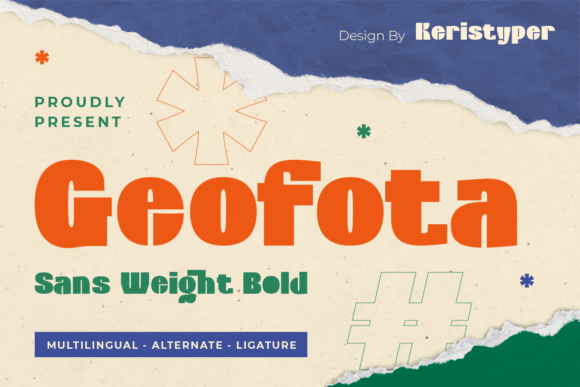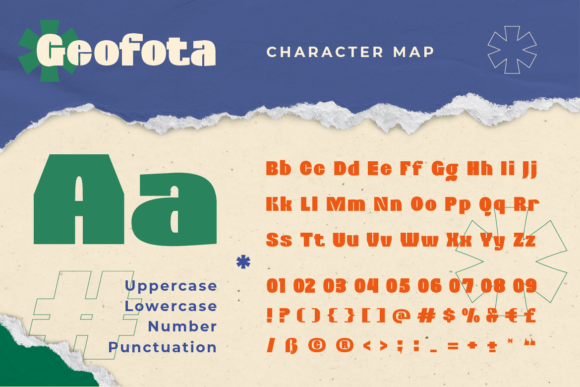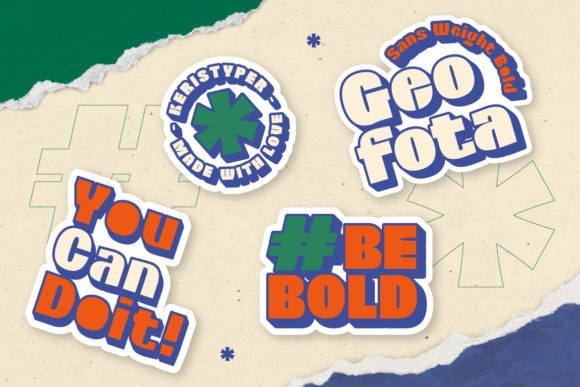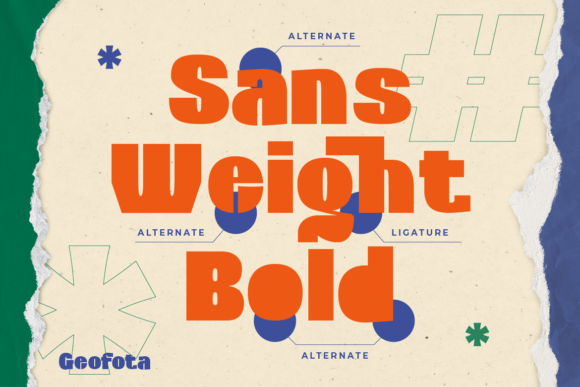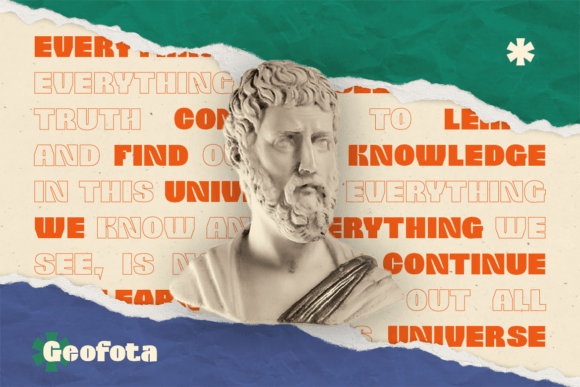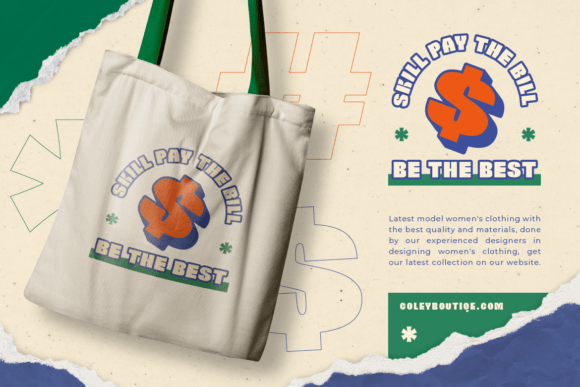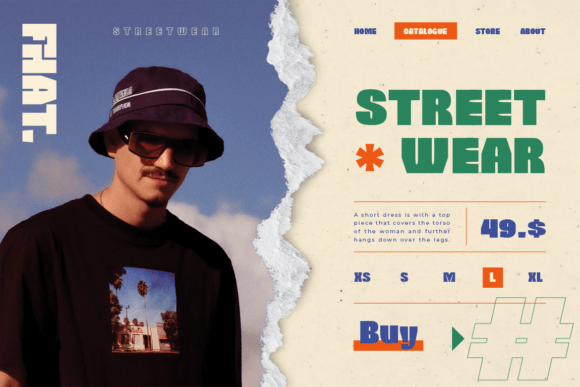
Discover the Urban Edge with Geofota Font
Imagine you’re strolling through a vibrant city, surrounded by graffiti-covered walls, neon lights, and the hum of urban energy. Suddenly, a bold, eye-catching font catches your attention – and that’s when you know you’ve found something special. The Geofota Font is that perfect blend of style and substance, born from the heart of urban street culture.
As a modern and heavy sans-serif font, Geofota Font is perfect for designers looking to add an edgy touch to their projects. Whether you’re designing a logo, crafting a social media post, or writing a book title, this font is sure to make a statement. Its versatility and bold style make it an invaluable asset for any designer looking to elevate their work.
Geofota Font Key Features
- Font Family: Geofota is a sans-serif font family with a modern and clean design.
- Font Size and Resolution: Designed for digital use at medium to large font sizes (12-48 points) and resolutions (72-300 DPI).
- Unique Characteristics: Geofota features a distinctive geometric shape and a high x-height, making it highly legible in both print and digital formats.
Geofota Font Review
As a designer, I was excited to dive into the Geofota Font, a sans-serif typeface that promises to bring a modern touch to any project. ✨ Here are my honest thoughts:
- Geometric shapes: The font’s geometric structure gives it a clean and crisp appearance, making it perfect for digital interfaces and corporate branding.
- Legibility: The font is highly legible, even at small font sizes, which is a must for any font intended for digital use.
- Customization options: Geofota Font offers a range of weights, from light to bold, allowing designers to choose the perfect fit for their project.
- Limited expressiveness: While the font is highly legible, it may lack the emotional resonance that other fonts can provide.
- No script or serif variants: If you’re looking for a font with script or serif variants, Geofota Font may not be the best choice.
- Not suitable for complex texts: Due to its geometric structure, the font may not be the best choice for complex texts or poetry.
Overall, I think Geofota Font is a solid choice for digital projects, but it may not be the best fit for every project. It’s a clean, modern font that’s perfect for interfaces and corporate branding, but it may lack the emotional resonance of other fonts. If you’re looking for a font that’s highly legible and customizable, Geofota Font is definitely worth considering. However, if you need a font with script or serif variants, or one that can handle complex texts, you may want to look elsewhere. ⚠️
Tips for Getting the Most Out of Geofota Font
To get the most out of Geofota Font, use it in combination with other design elements, such as bold text, images, and graphics. Experiment with different font sizes and colors to create visual interest.
Geofota Font is suitable for a variety of use cases, including:
- Graphic design
- Typography
- Branding
- Marketing materials
Alternatives to Geofota Font